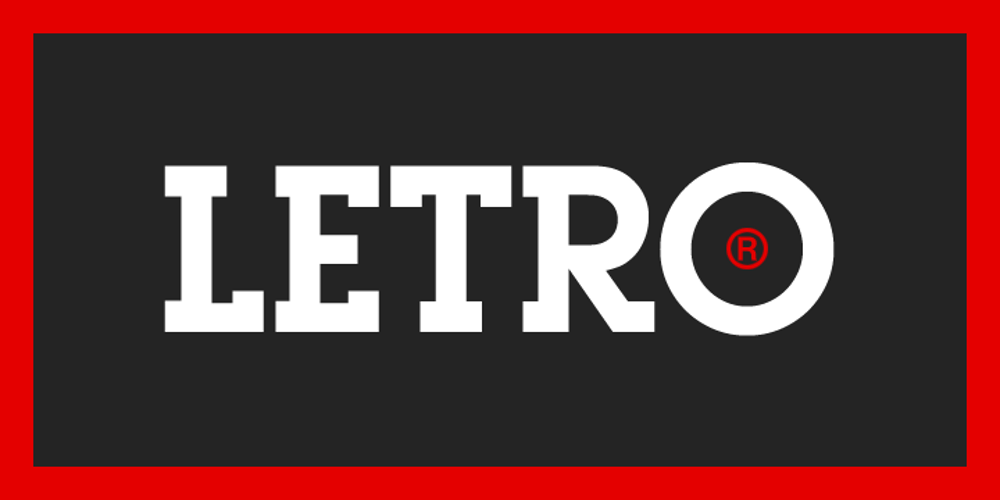
Letro Font Family was designed by Alex Haigh, Dawn Lewandowski and published by HyperFluro. Letro contains 2 styles and family package options. Introducing Letro, the ultimate slab serif font designed for versatility and style. Perfect for professional presentations, personal projects, and eye-catching displays, Letro’s robust design and sleek alternates make it an ideal choice. Suitable for both digital and print media, this font adapts seamlessly to various formats and sizes, ensuring clarity and elegance on any platform. Key features include a sturdy slab serif form, stylish alternates, availability in light and regular weights, and support for multiple languages. Letro balances elegance with a modern twist, combining legibility and finesse, making it a standout choice for any project. When you need a slab serif font that excels in every aspect, Letro is your go-to typeface. Download Letro today and elevate your designs with its exceptional features.